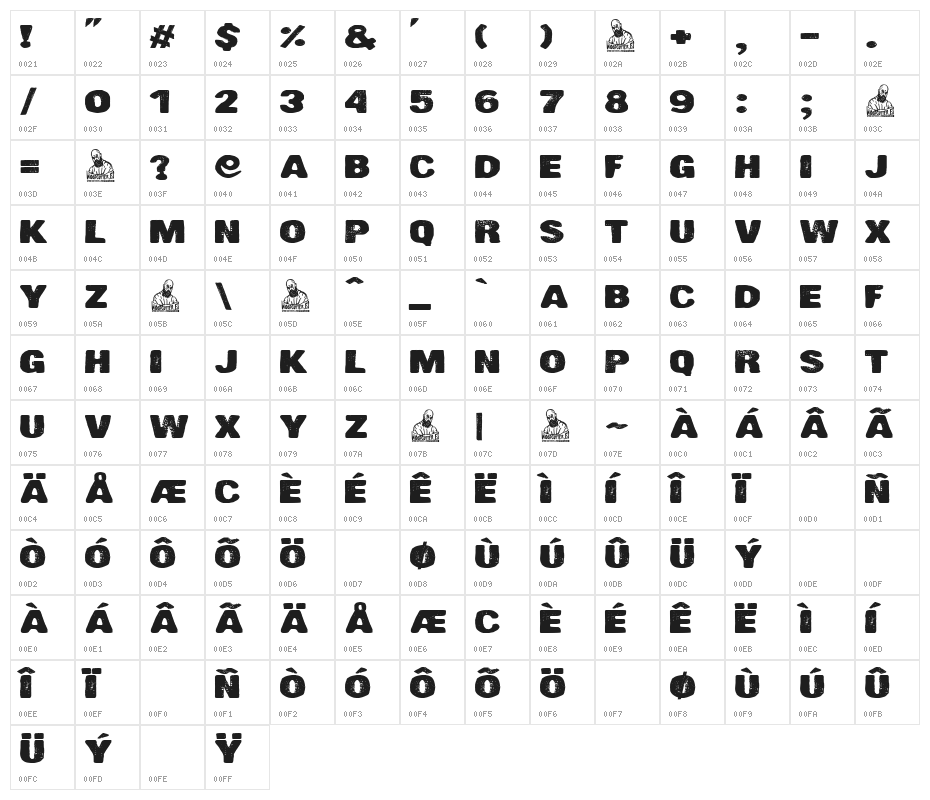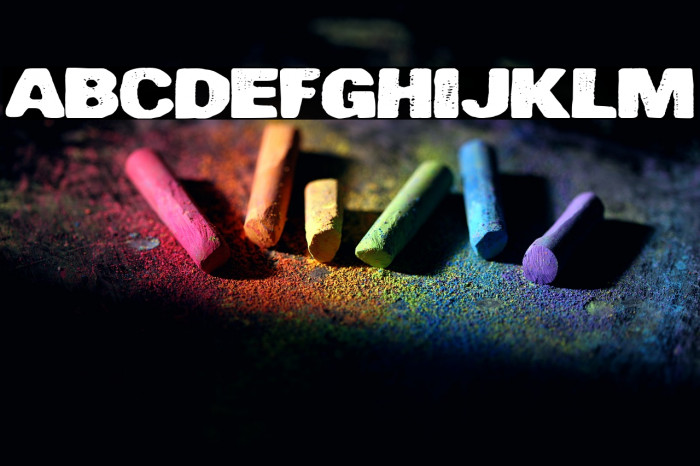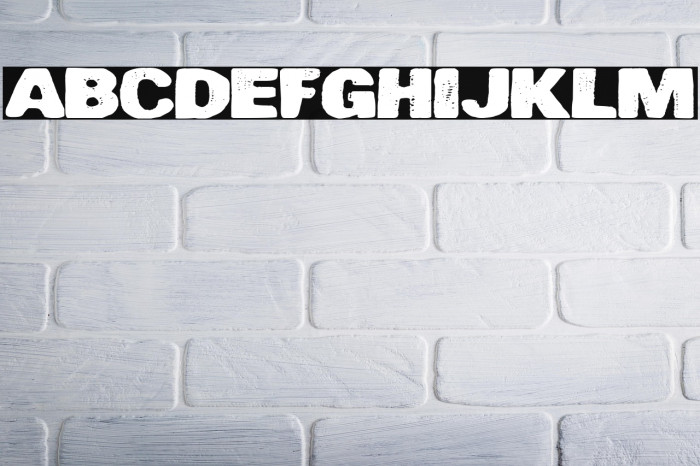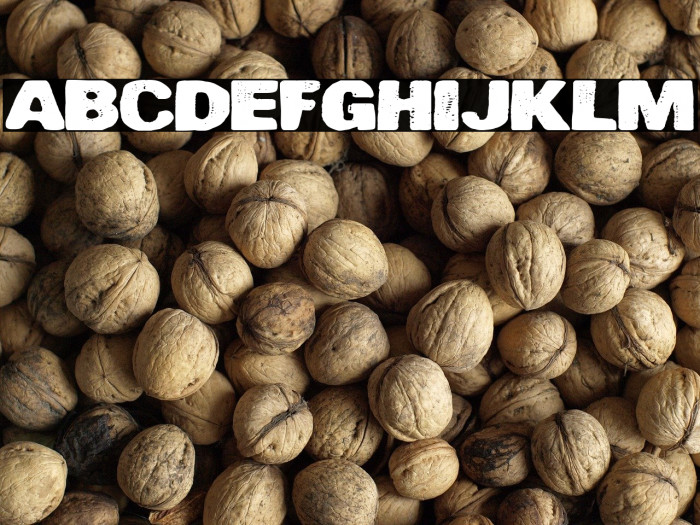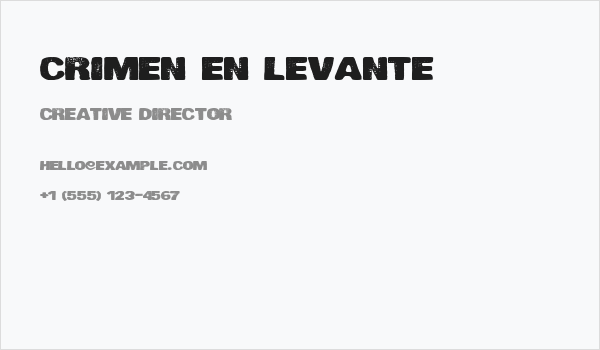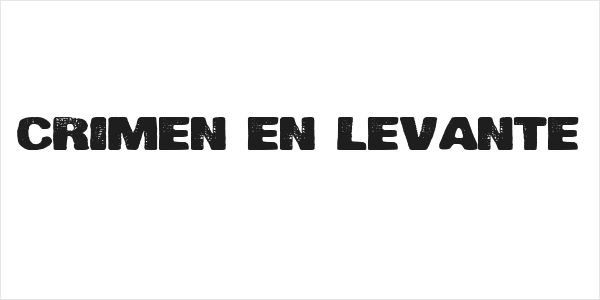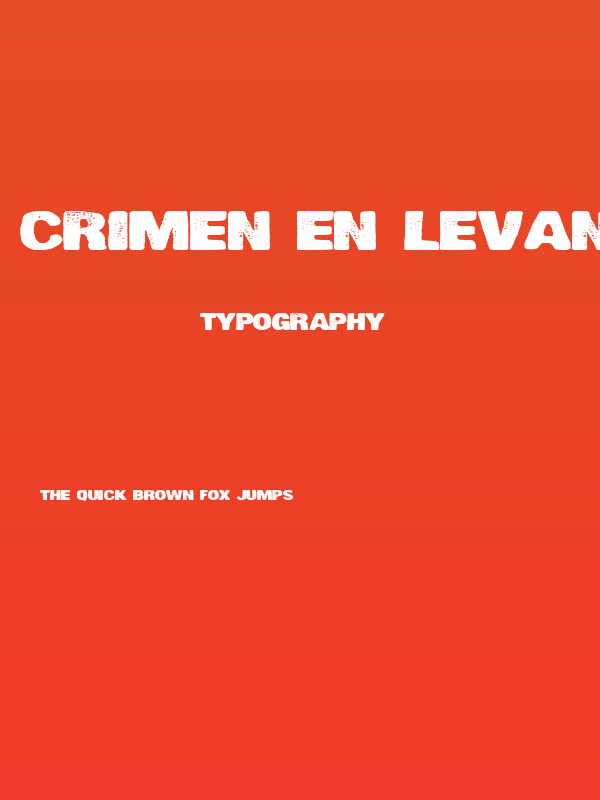
Crimen en Levante Font
Crimen en Levante Description
This font features a bold, distressed style with a textured appearance that gives it a rugged, vintage feel. The characters are thick and impactful, with a slightly uneven surface that adds to its rustic charm. The uppercase letters are prominent and commanding, while the numbers and special characters maintain the same boldness and texture. This font is ideal for projects that require a strong, eye-catching display with a touch of nostalgia and grit.
| Proposed Projects | Ideal for posters, album covers, branding for rustic or vintage-themed products, and any design needing a bold, textured look. |